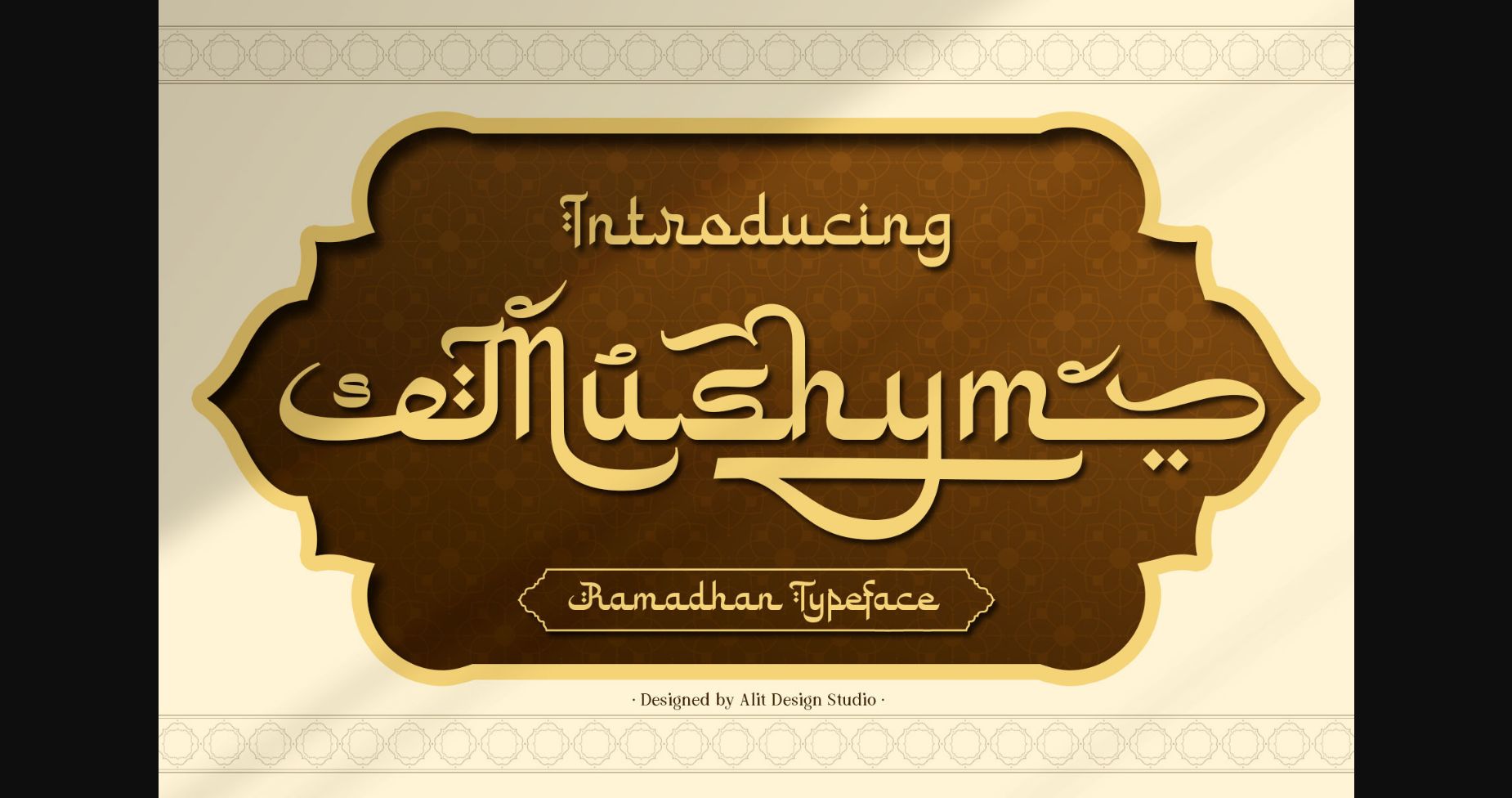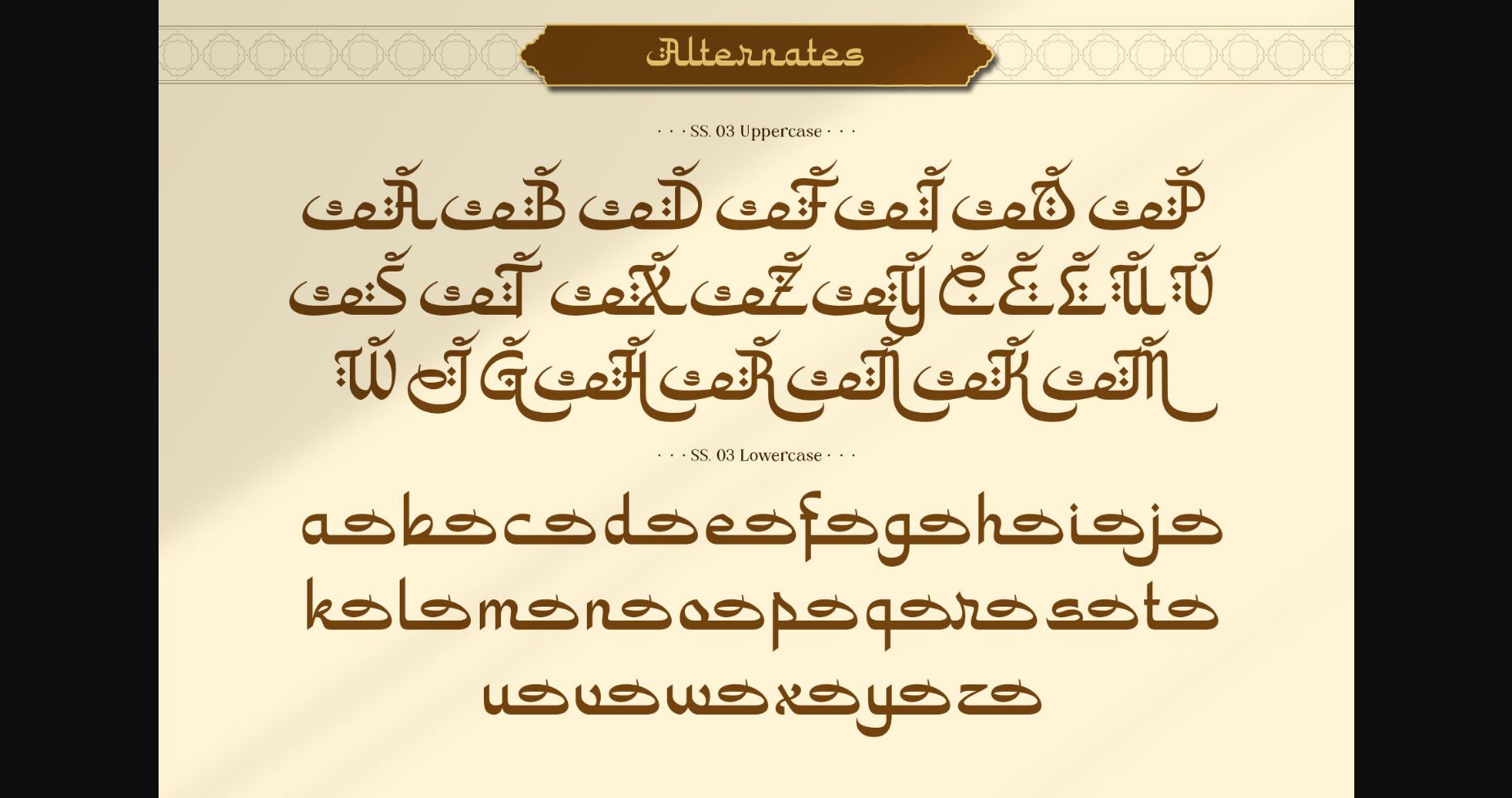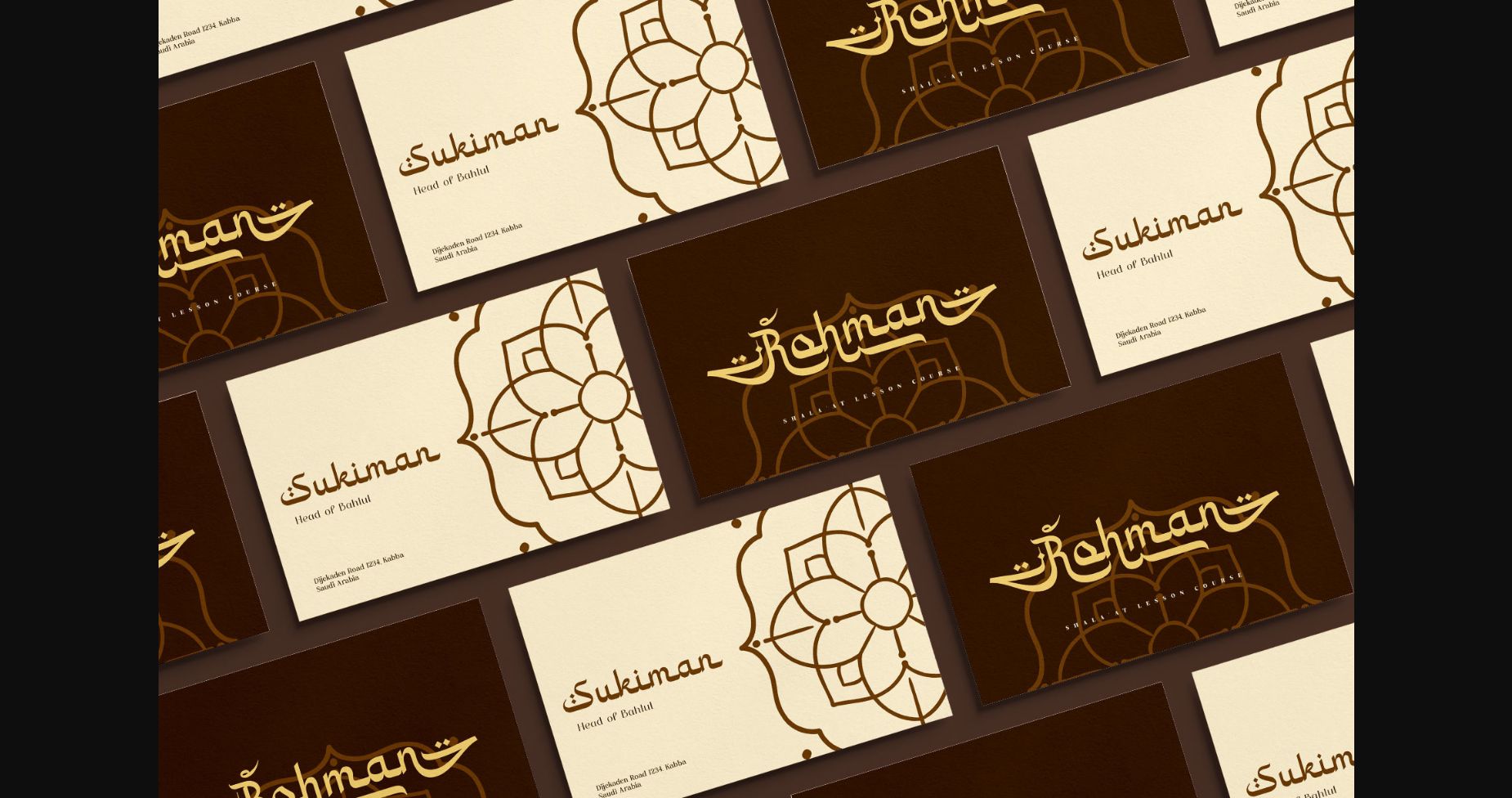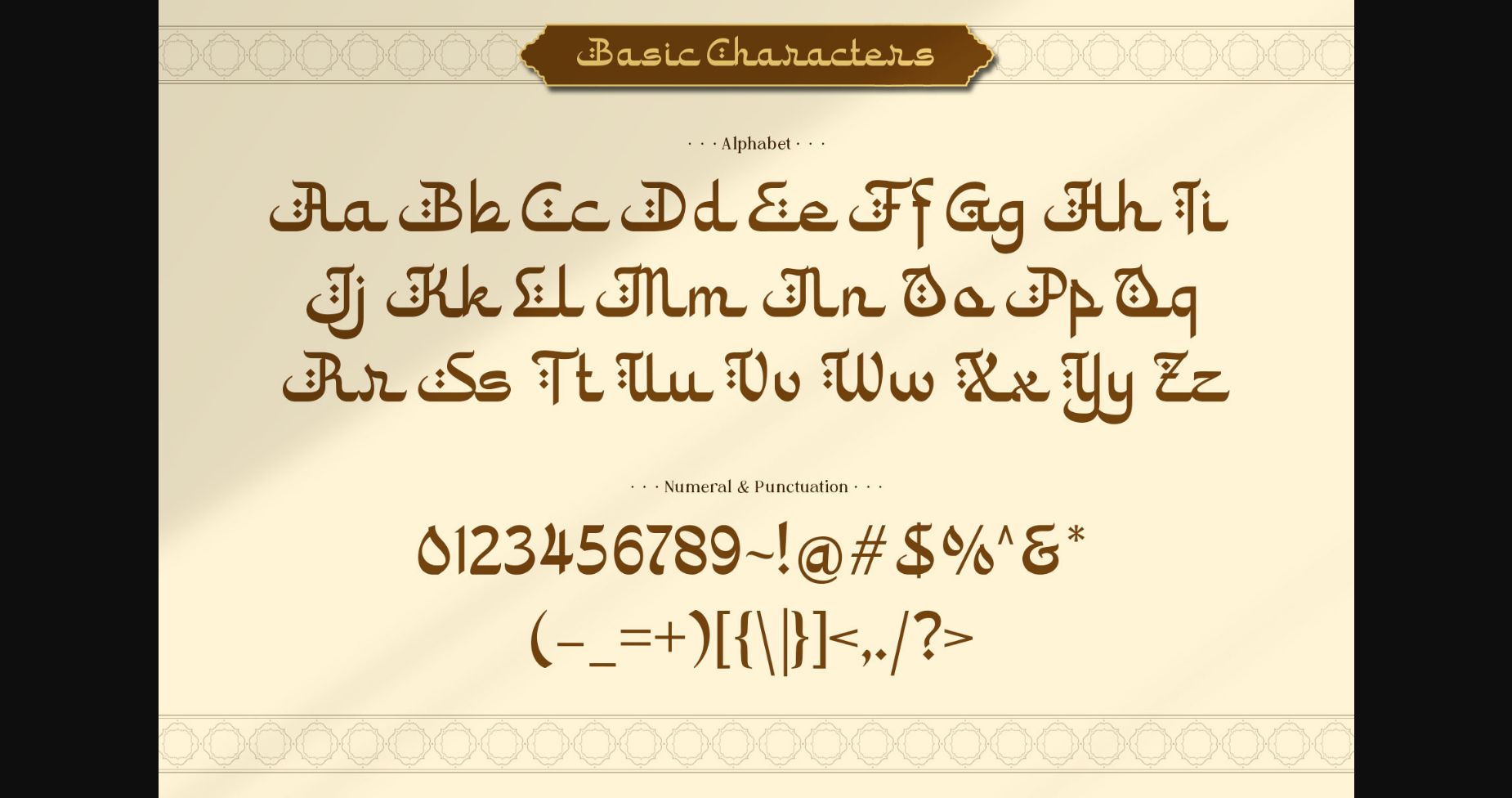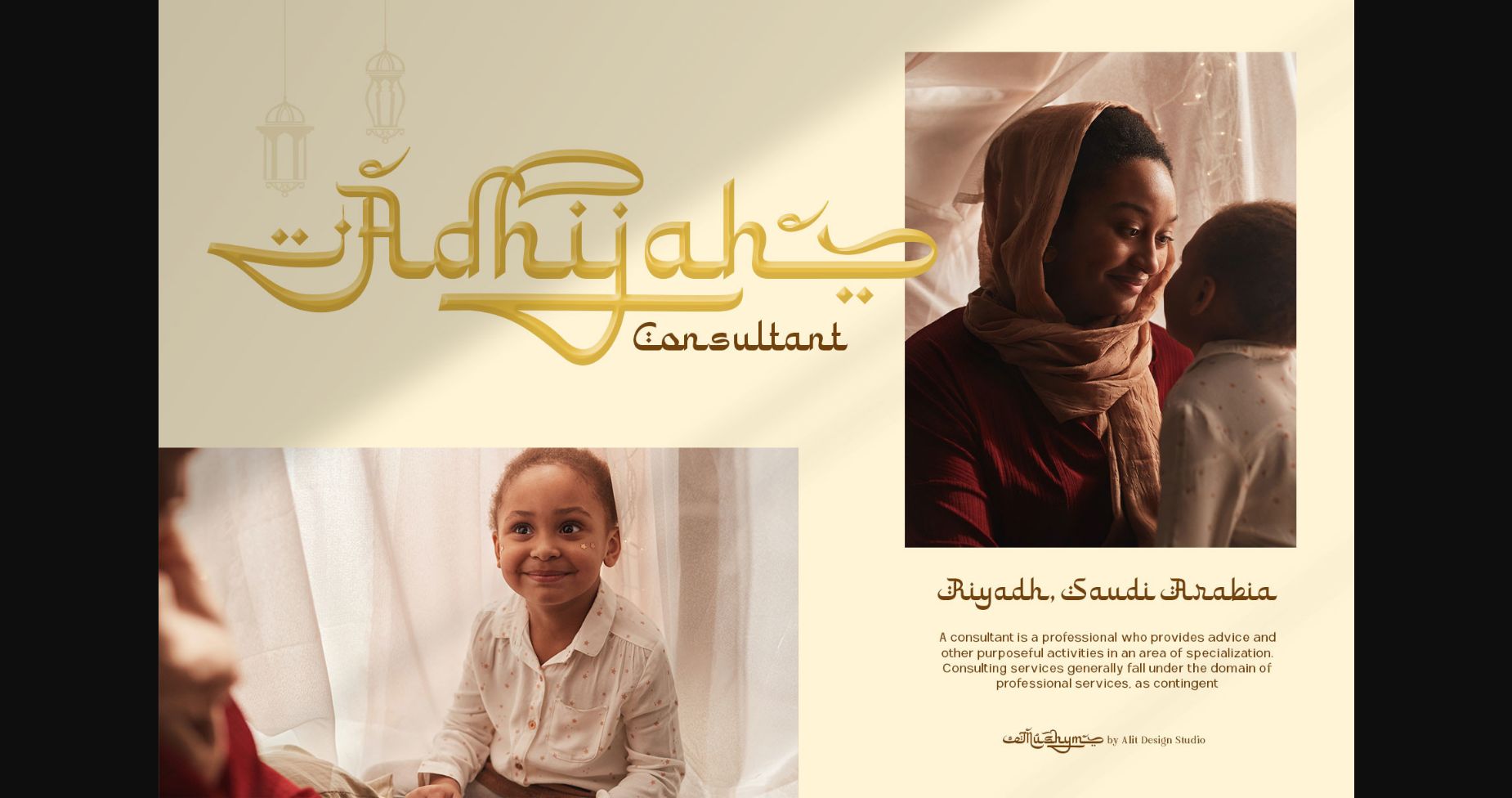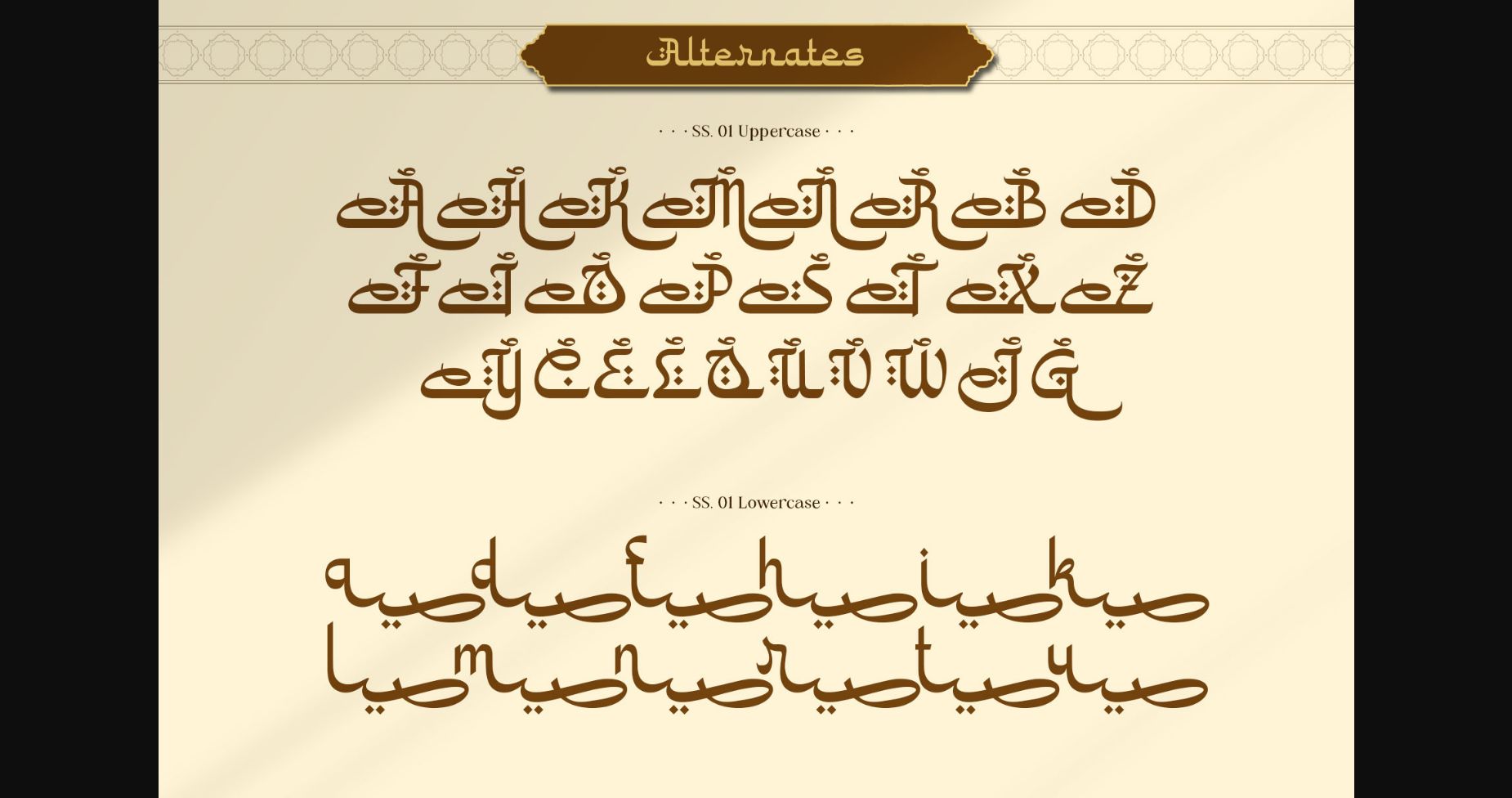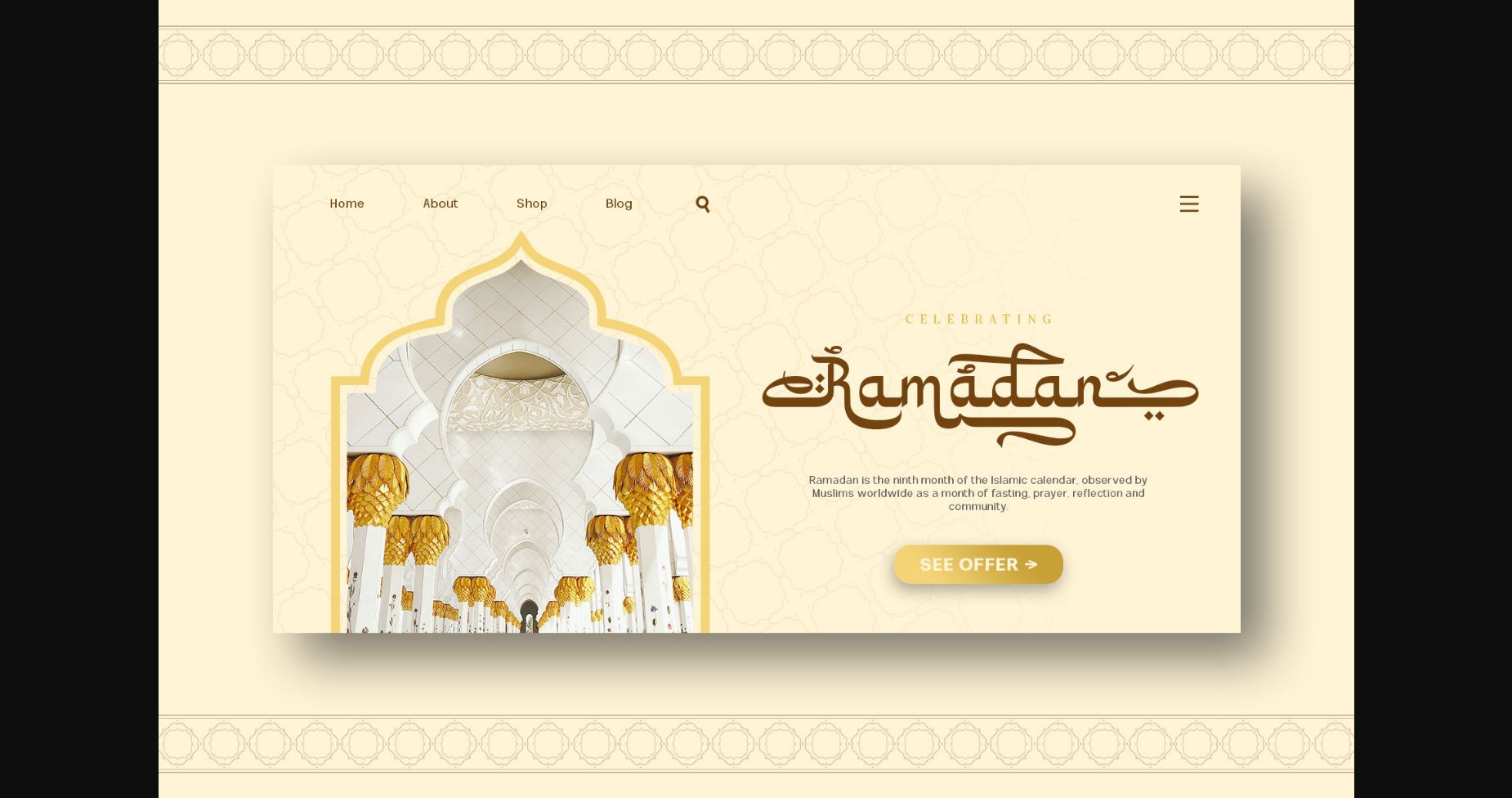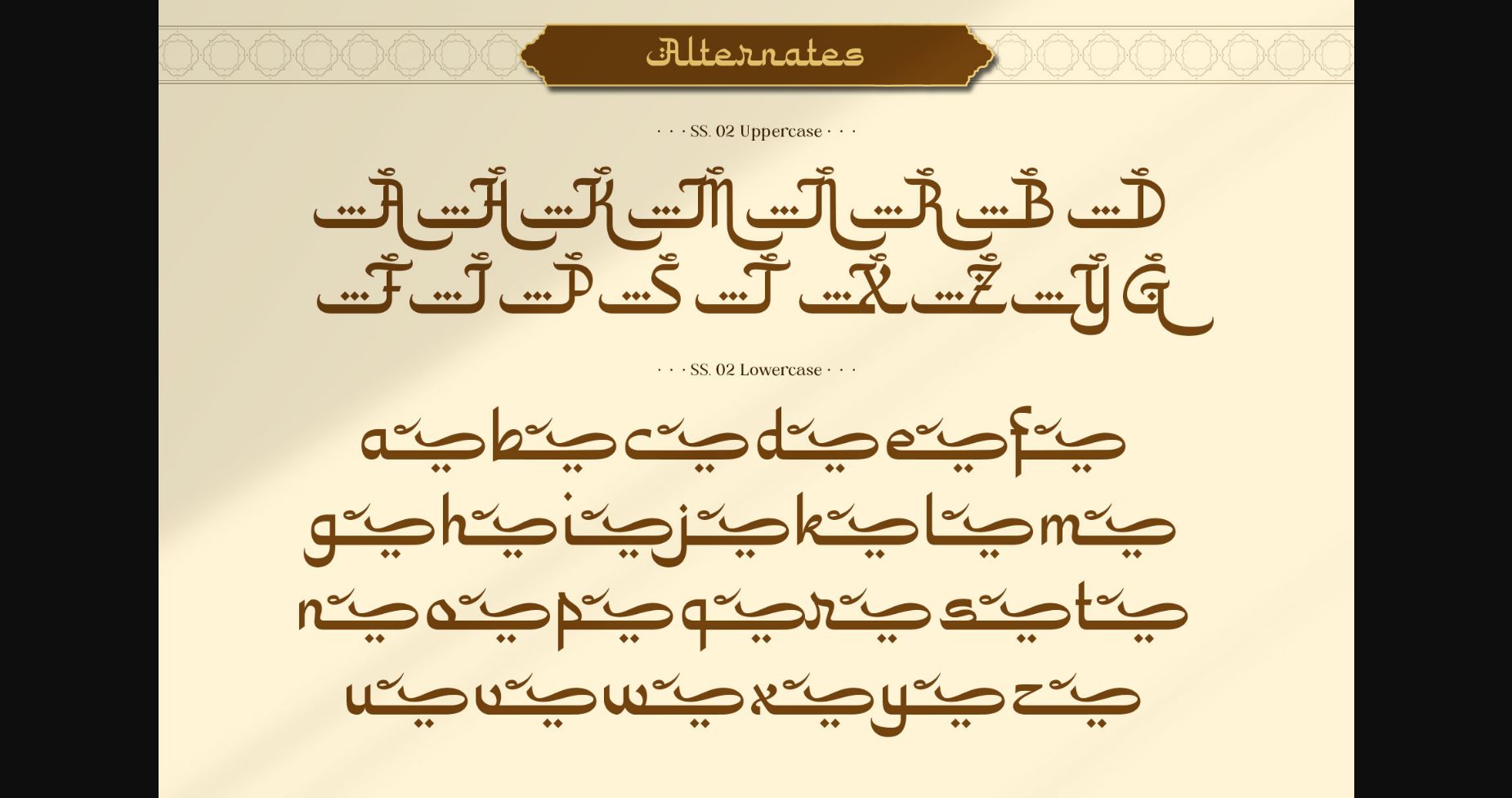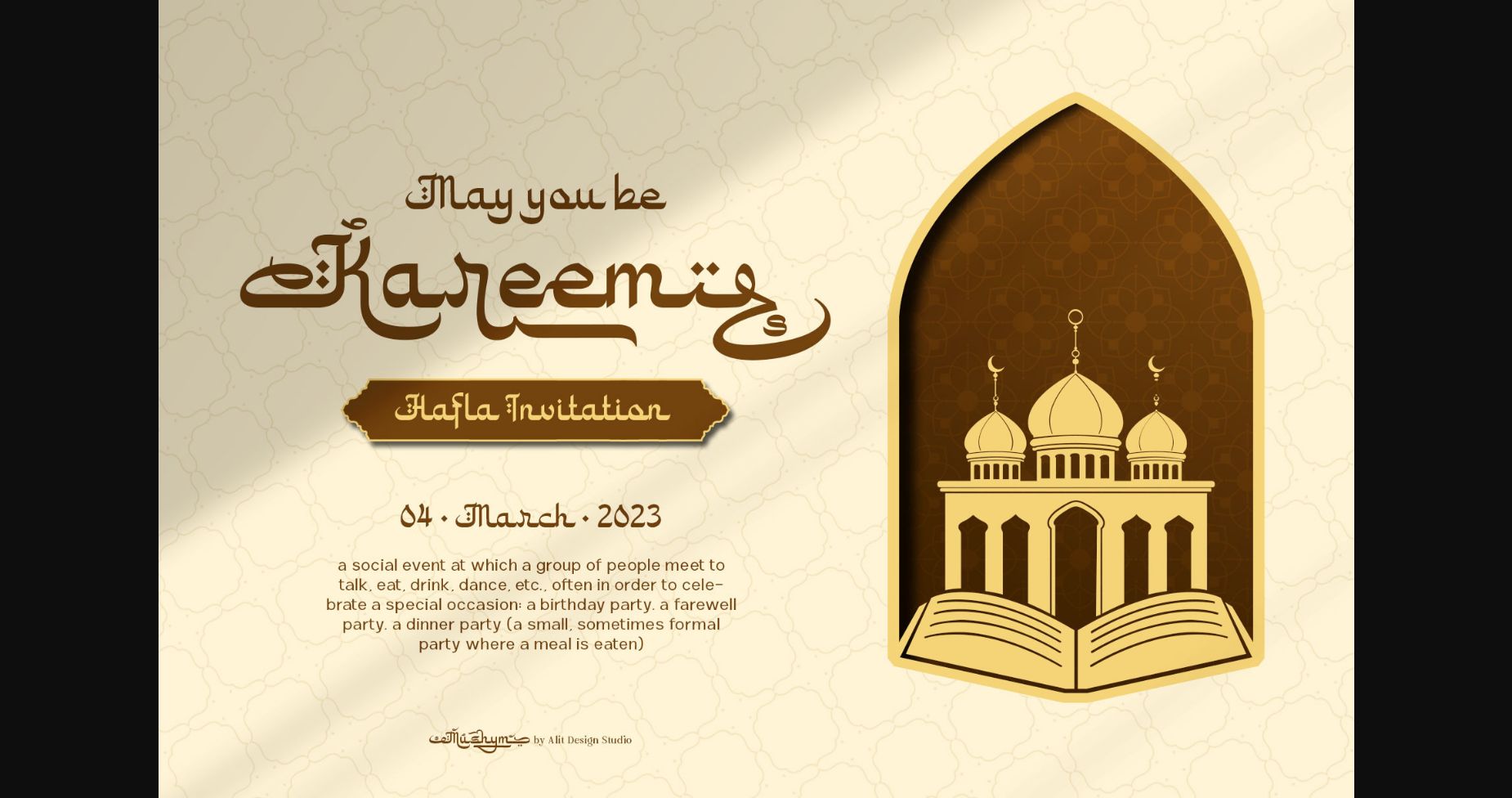
Mushym Arabic Typeface Font
Mushym is an elegant and sophisticated font product that is designed to add a religious and Islamic touch to your designs, making it an excellent choice for Ramadan promotions and other Islamic design projects. The font’s carefully crafted design is sure to impress your audience and enhance the visual appeal of your designs.